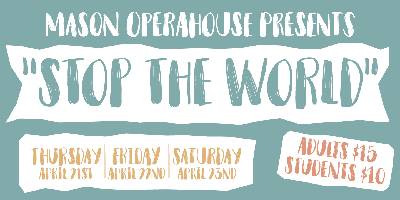
Artifex Hand CF Font
Artifex Hand CF Font is perfect for branding projects, logo designs, wedding invitations, greeting cards, posters, magazine layouts, book covers, packaging design, and creative advertising campaigns where a handcrafted aesthetic is desired.
What makes Artifex Hand CF Font so exciting is its authentic hand-drawn character that brings warmth and personality to any design project. The natural flow and organic curves create an intimate, personal connection with readers while maintaining excellent readability across different sizes and applications.
The Artifex Hand CF Font family includes multiple weights and styles, offering designers versatility in their creative projects. From light and delicate versions perfect for elegant invitations to bold variants ideal for impactful headlines and display text.
This distinctive typeface combines the charm of handwritten scripts with professional design standards, making it an excellent choice for designers seeking to add a human touch to their work. The Artifex Hand CF Font Free Download provides creatives with access to a premium quality font that stands out in today's digital landscape.
The careful attention to detail in each letterform ensures consistent spacing and harmonious character relationships throughout the entire alphabet. Whether you're working on personal projects or professional assignments, this font delivers exceptional results that capture attention and engage audiences effectively.
With its unique blend of casual elegance and artistic flair, Artifex Hand CF Font transforms ordinary text into visually compelling content. The font's versatility makes it suitable for both digital and print applications, ensuring your designs maintain their impact across all media formats.